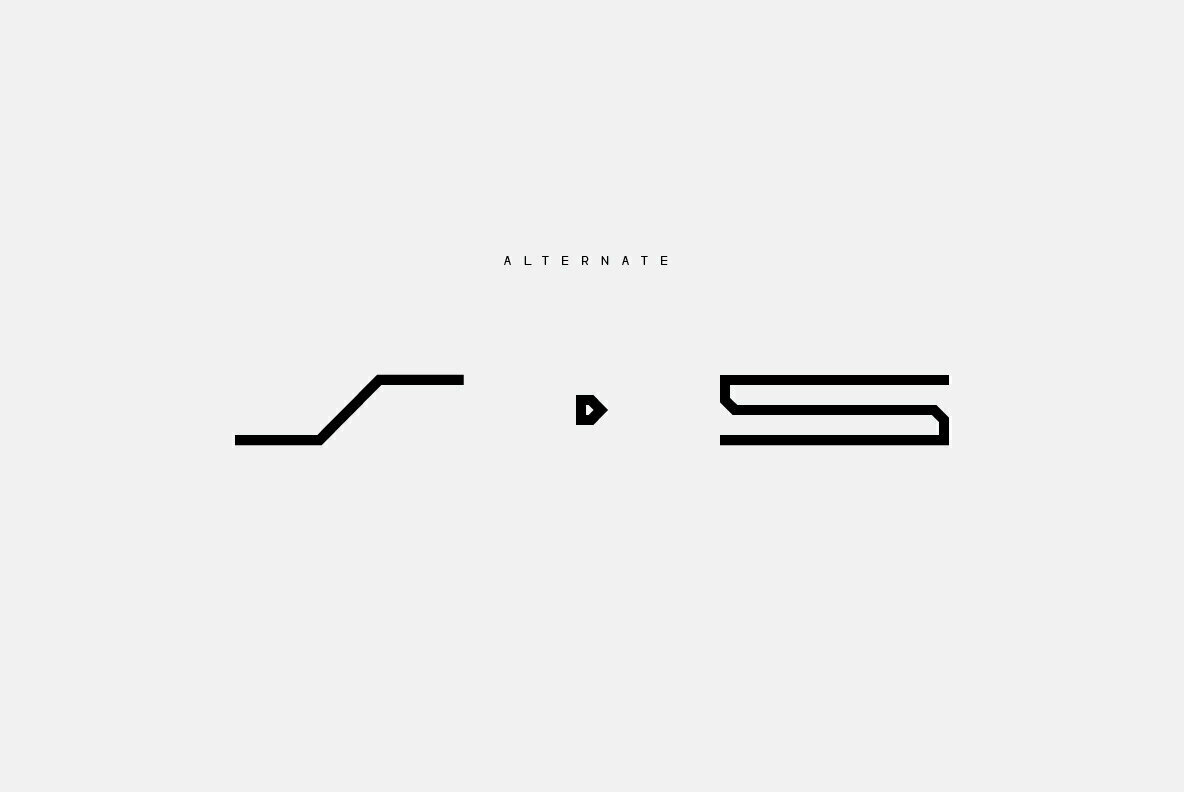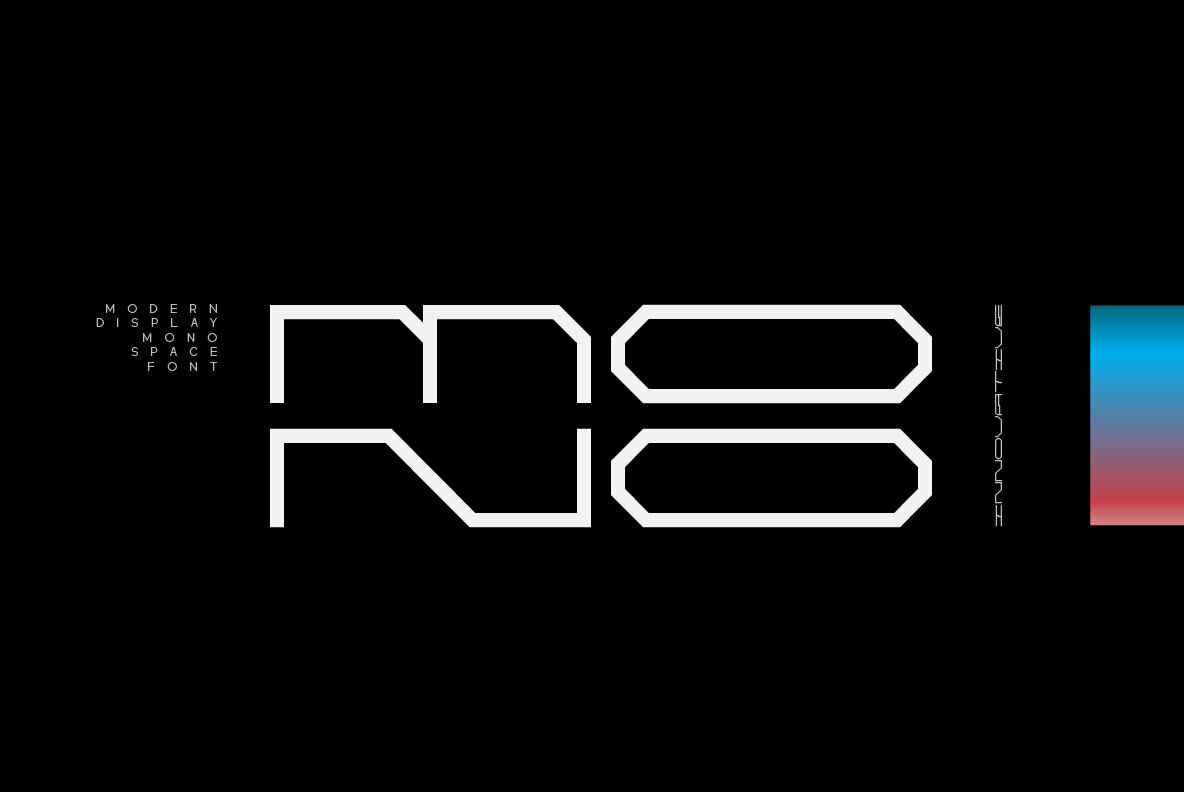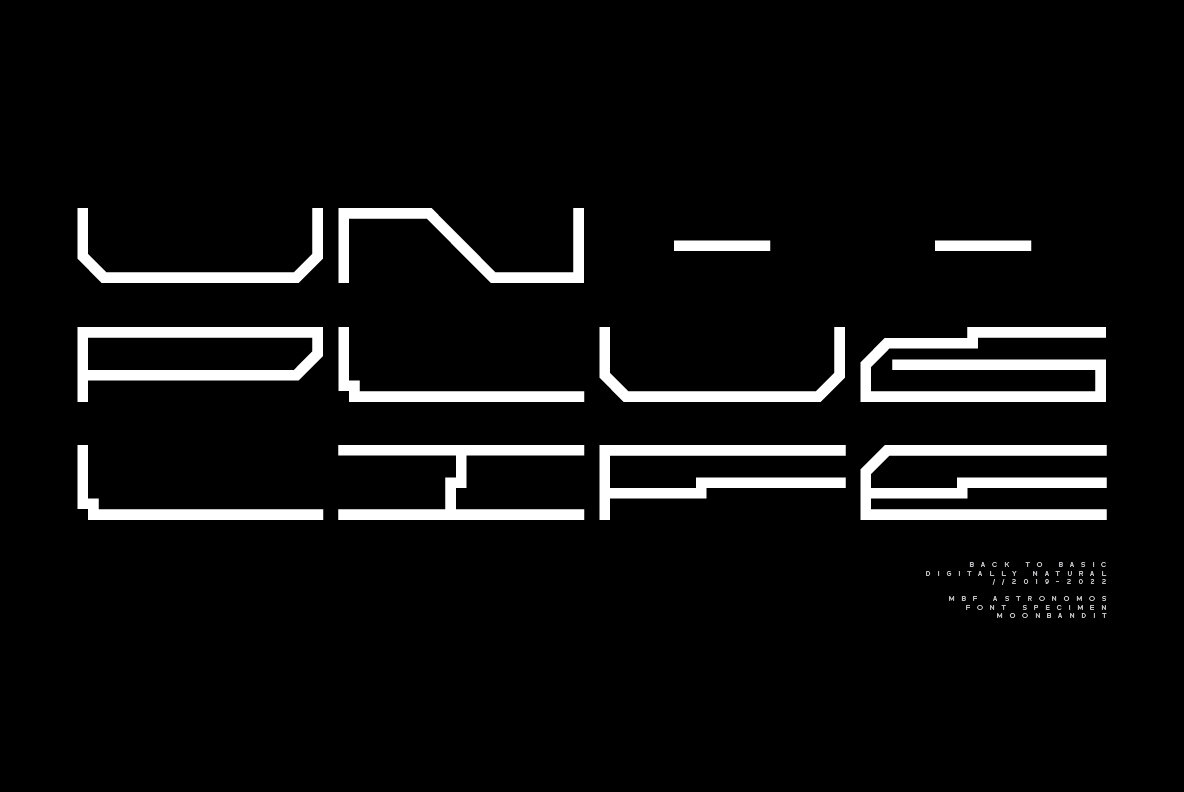
MBF Astronomos 1
Astronomos is an experimental monospace futuristic scifi font with extra wide treatment. This typeface is perfect for logo, title, headline, and even decorative design element.